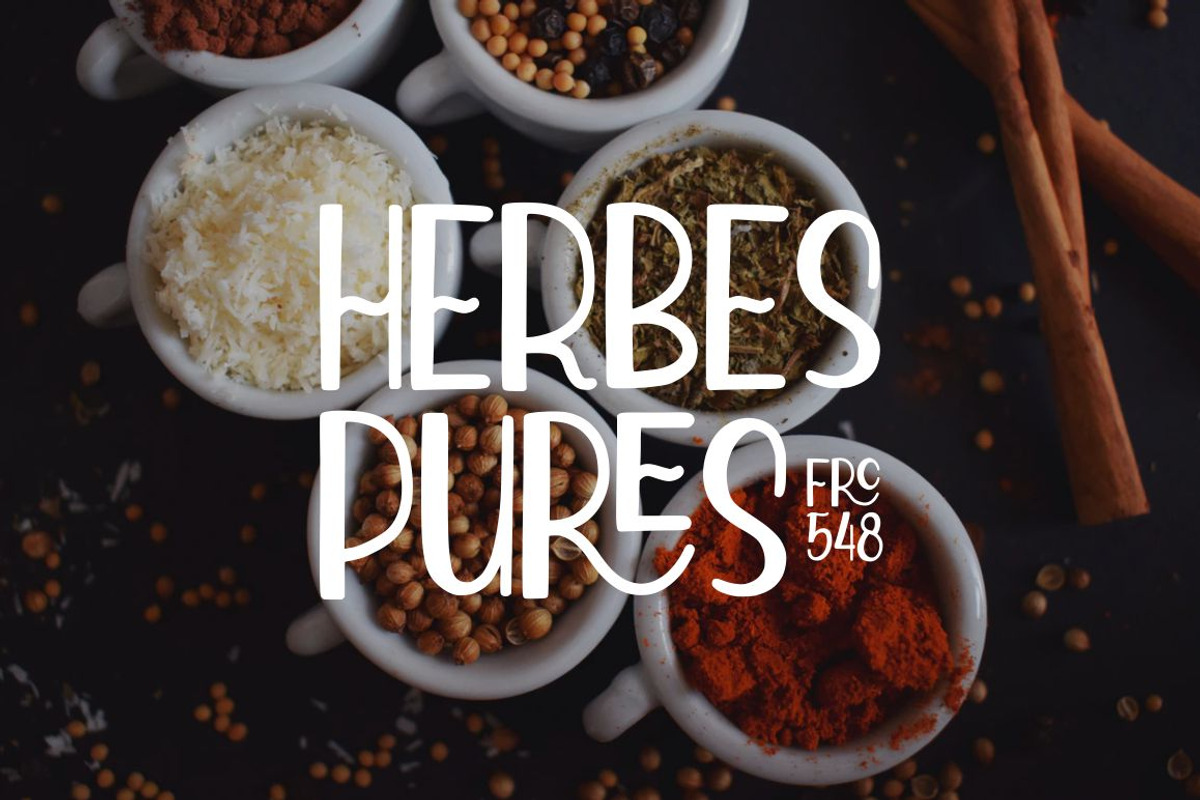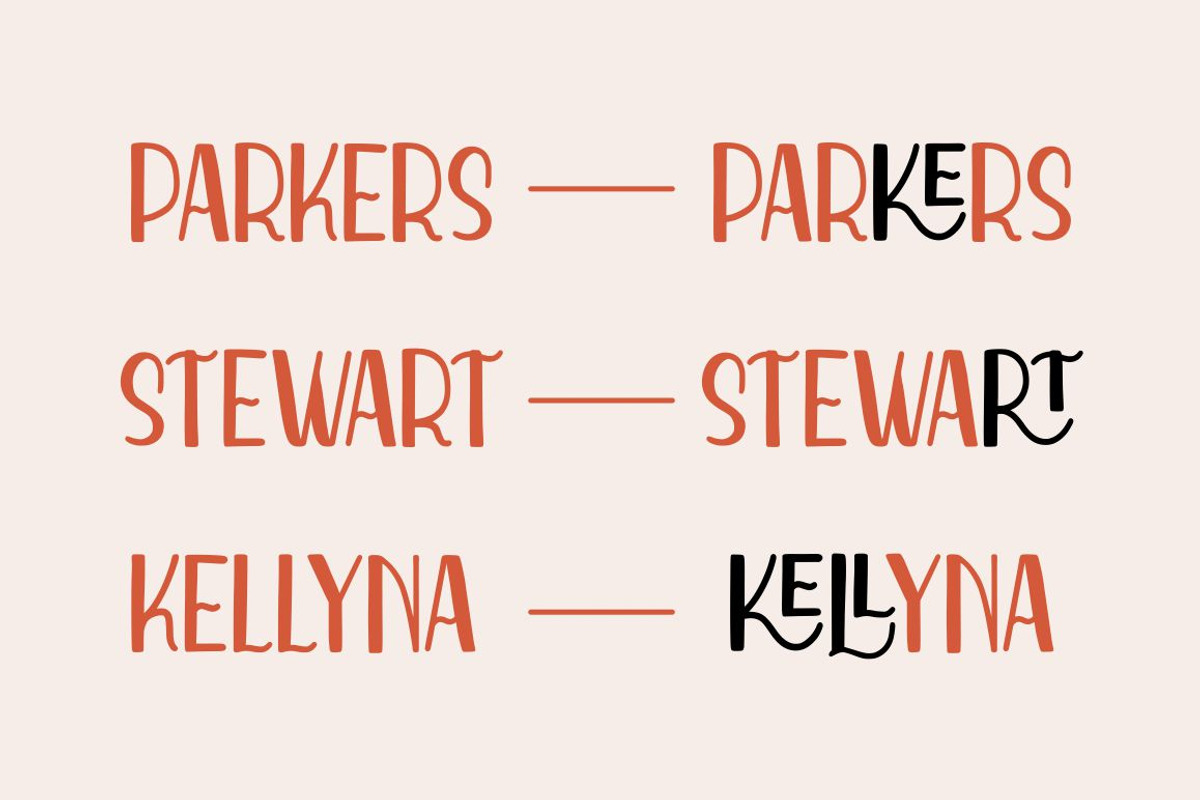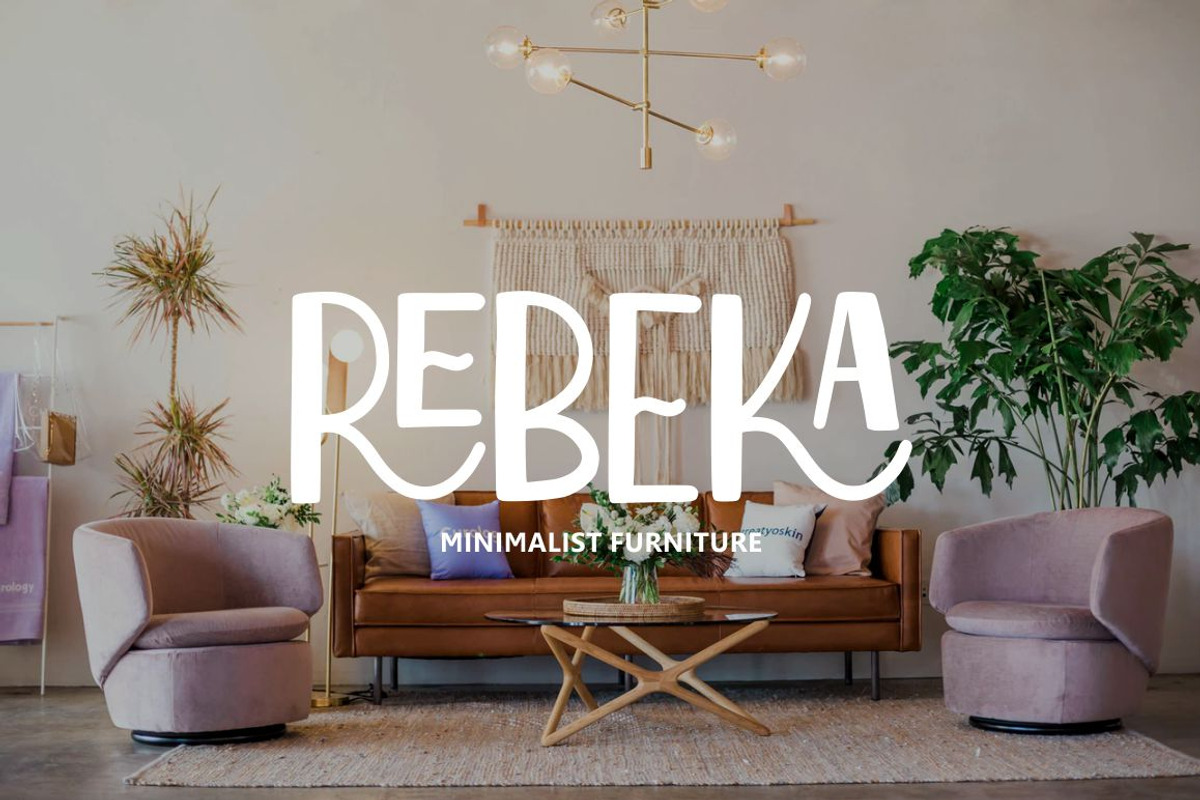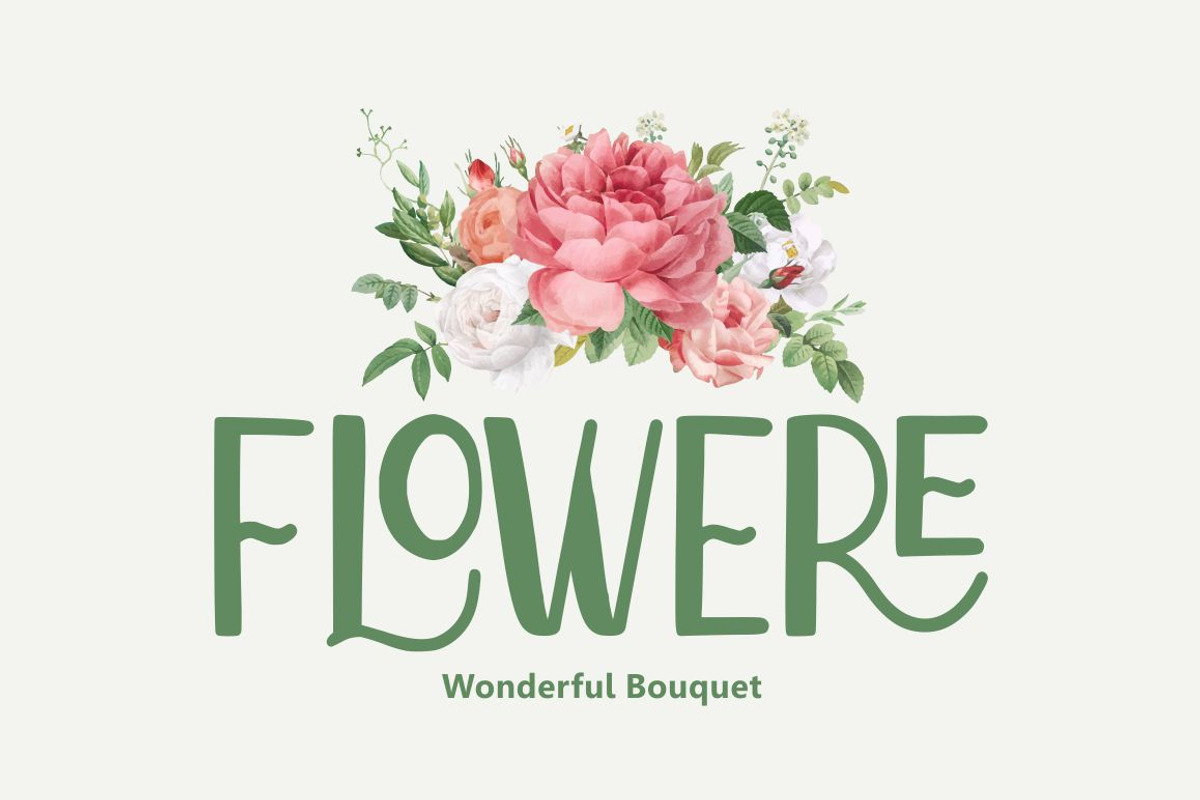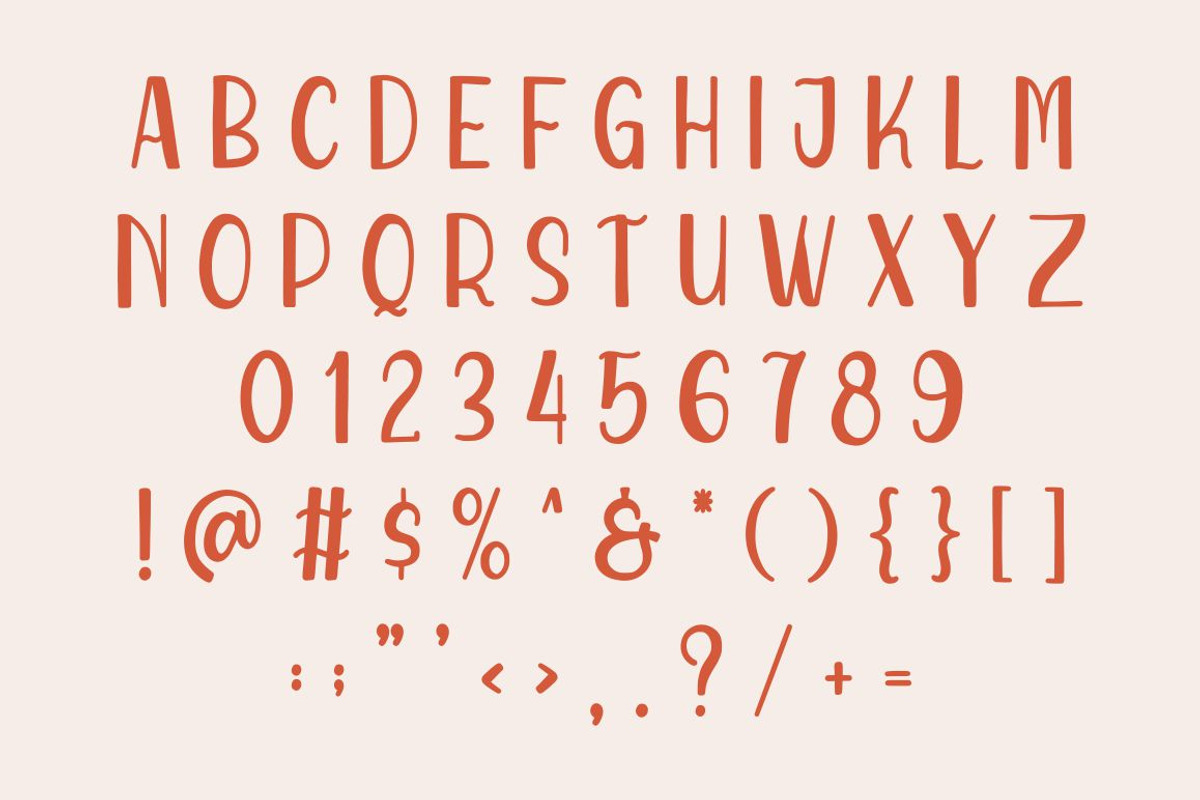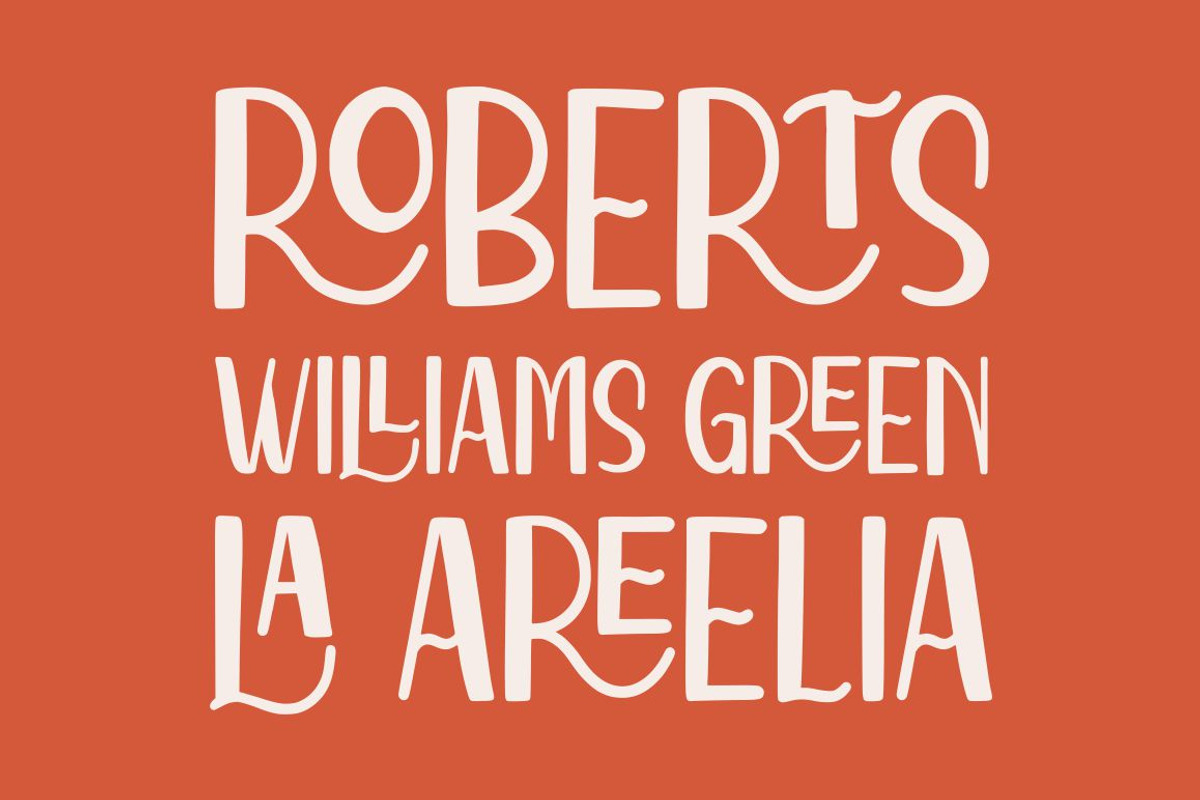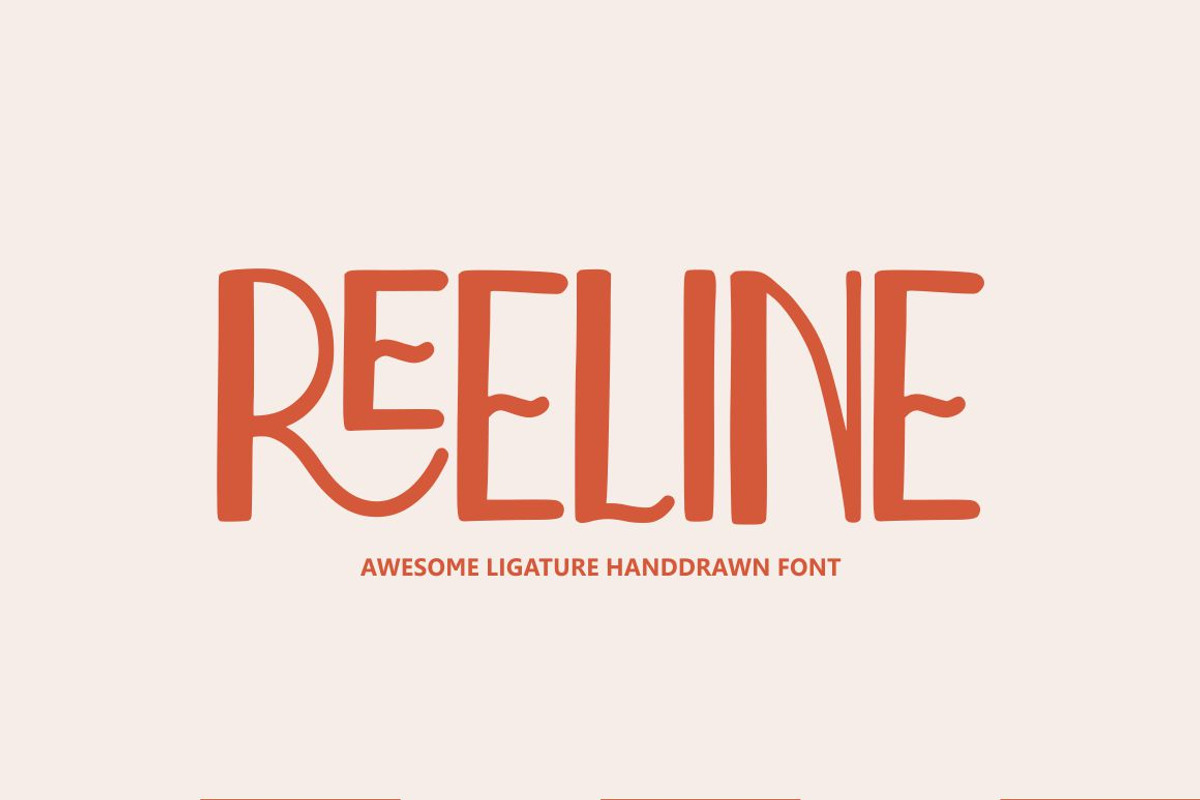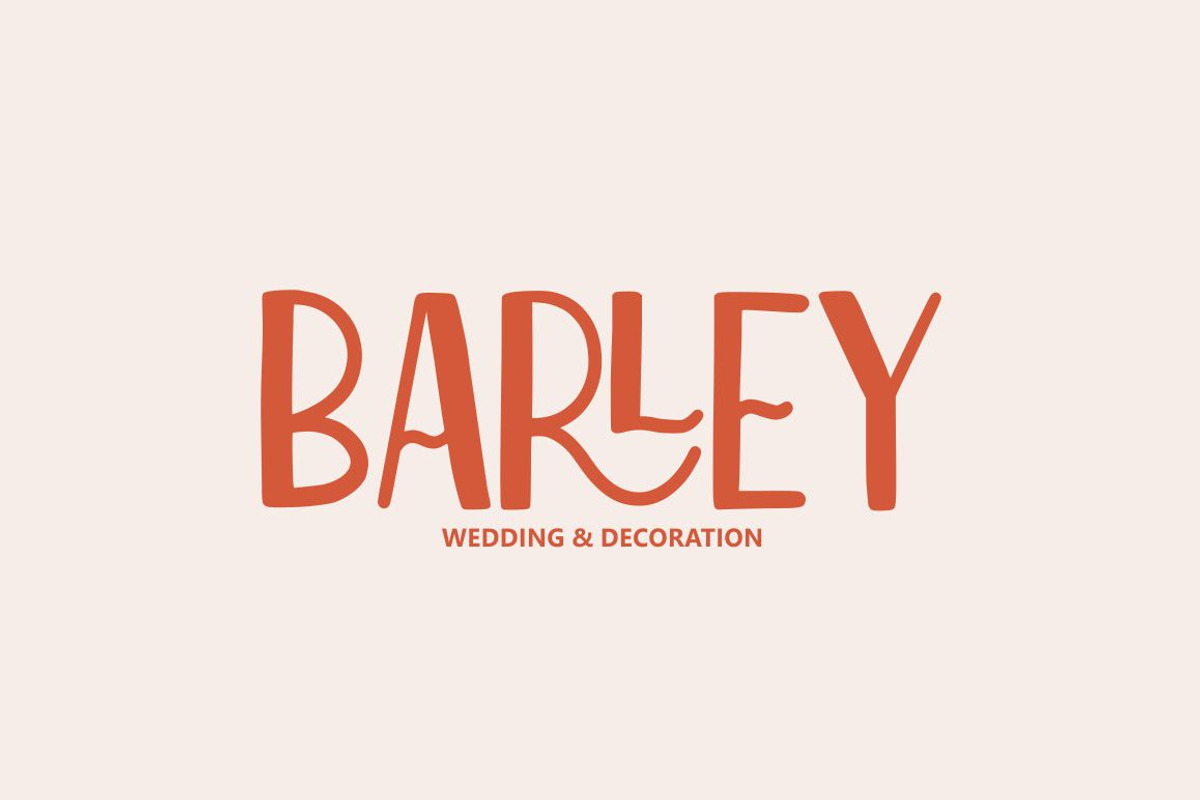
Reeline - Luxury Hand Drawn Font
Introducing Reeline - Luxury Handdrawn Font
Reeline born from handdrawn style fonts. With many ligatures open you need for the great work ever. That's available on other file from letter A-Z and a-z with allcaps only.
Versatile for design poster, logo, branding, label, quote, headline profil, banner, t-shirt design, packaging, magazine, brochure, and many more your amazing work with this fonts.
Reeline - Luxury Hand Drawn Font by Good Java Studio fits naturally into Branding, posters, packaging, typography.